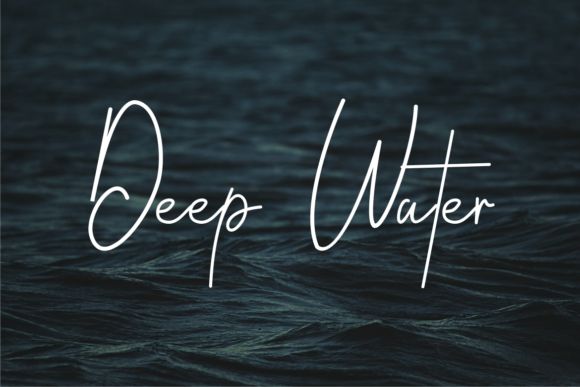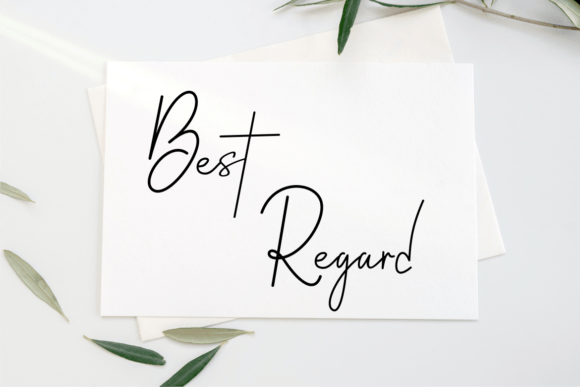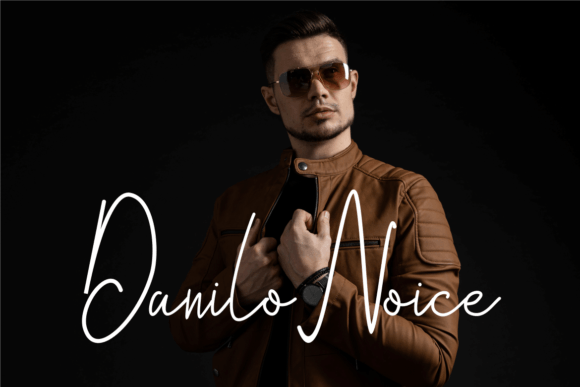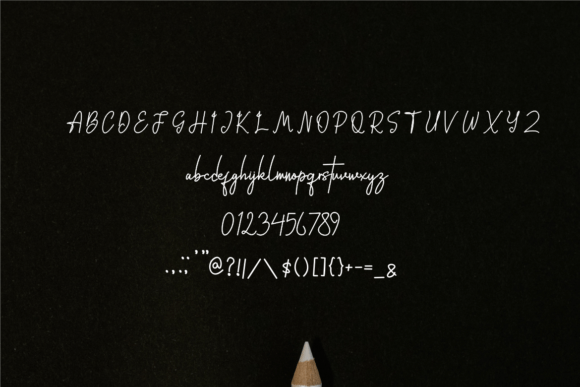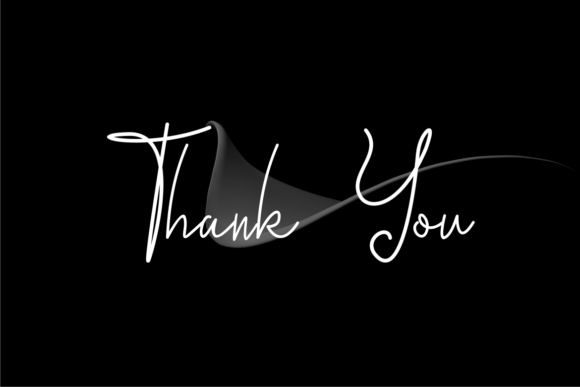
Fonatijay Font
Add Authentic Style with Fonatijay Font
The Fonatijay font is a cursive and authentic handwritten script designed to bring personality and elegance to your branding projects. Its fluid strokes and natural flow make it ideal for creatives seeking a unique, handcrafted touch. Whether you’re designing logos, t-shirt prints, esports branding, or more, Fonatijay stands out beautifully.
Perfect for Branding, T-Shirt Printing, and Esports
The Fonatijay font fits a wide range of applications including logo design, apparel printing, gaming and esports branding, social media graphics, and promotional materials. Its stylish cursive appearance adds a sophisticated yet dynamic feel to your projects.
A Cursive Script with Character
Each letter in the Fonatijay font is carefully crafted to blend smooth cursive style with legibility. The authentic handwritten look gives your text movement and warmth, making it perfect for creative industries that value individuality and style.
Stylish and Readable Typography
While decorative, the Fonatijay font maintains clear readability across various sizes. Whether used for bold logos or smaller text elements, it balances style with function, making it a versatile choice for many design projects.
Make Your Designs Stand Out